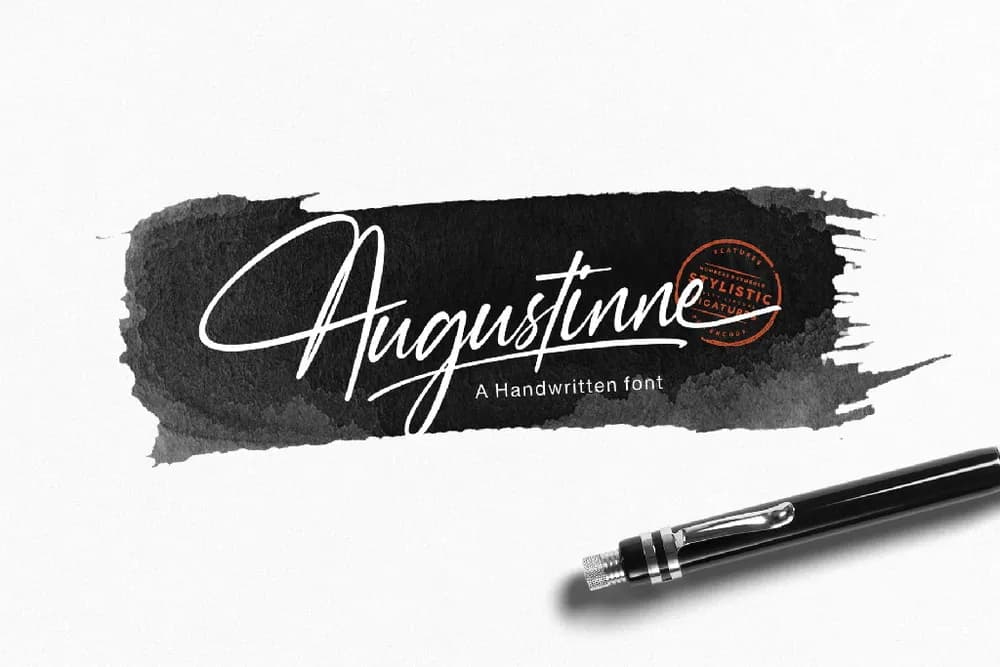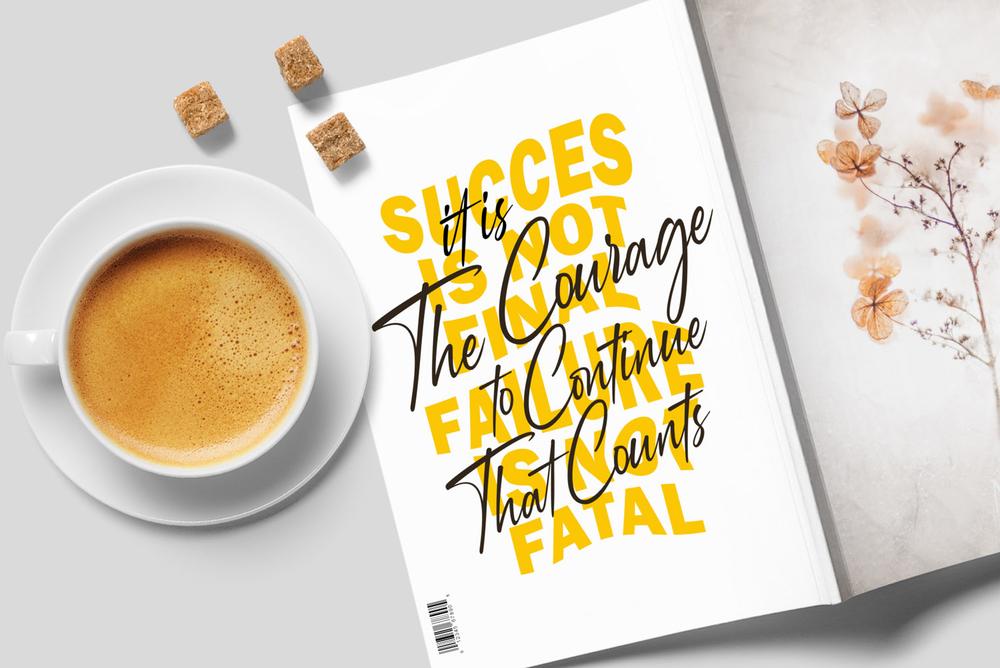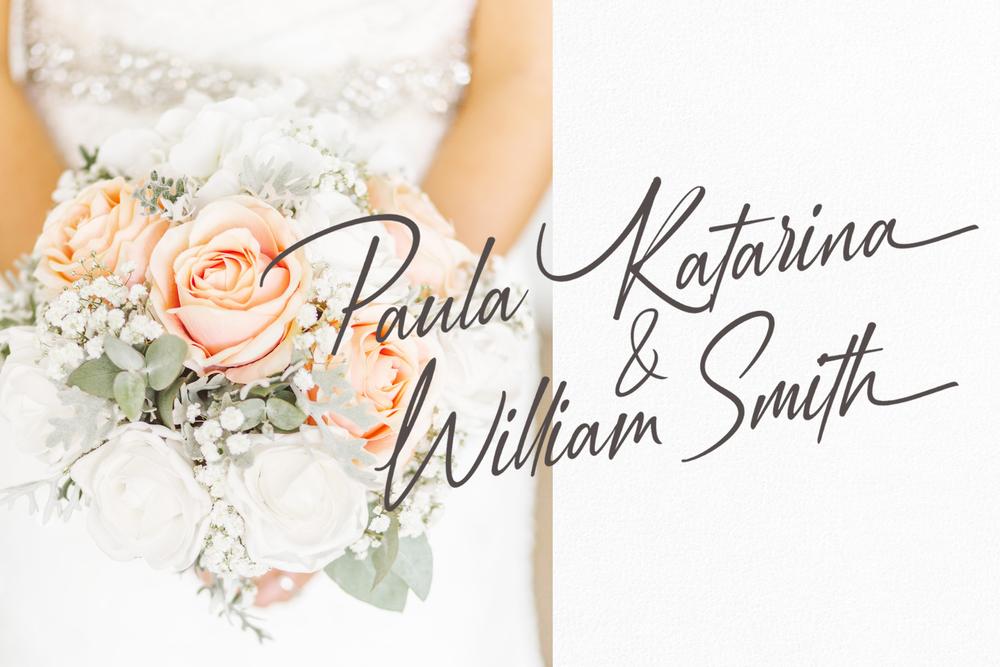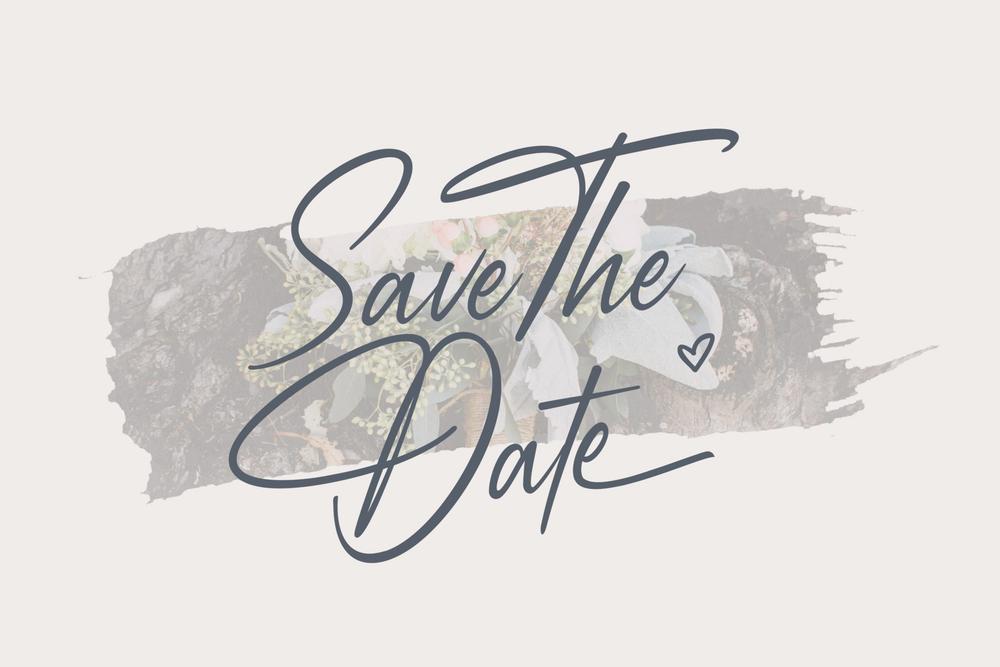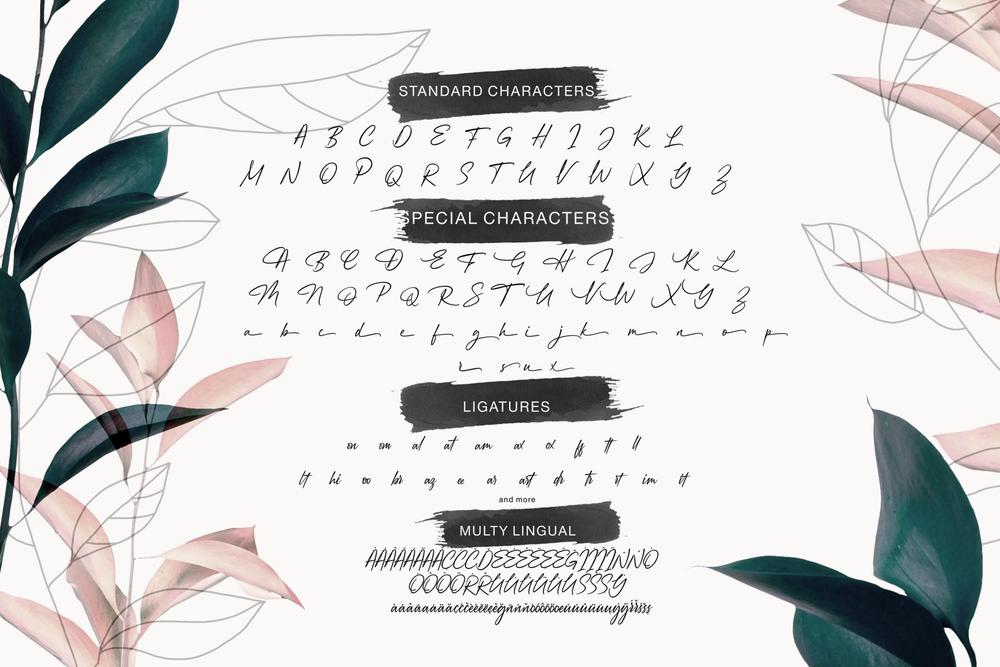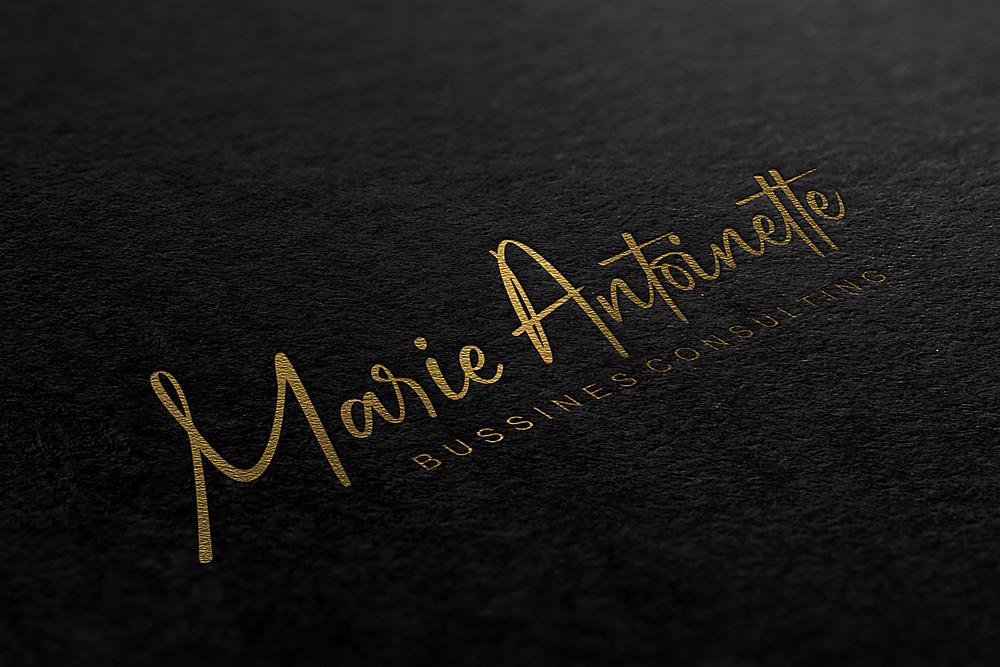
Hi Welcome :) Thank you for looking Augustinne Font. Spacious, comfortable, peaceful, a perfect versatile font that you can use. Augustinne is guaranteed to make your text stand out perfect for cards,printed quotes, logos,Signature, product packaging, book cover, invitations, frame writings, headers and whatever your imagination holds. Upparcase letters have amazing curves. If you try this font, You can see that all the letters look great. File include: Augustinne.ttf Augustinne.otf Augustinne woff